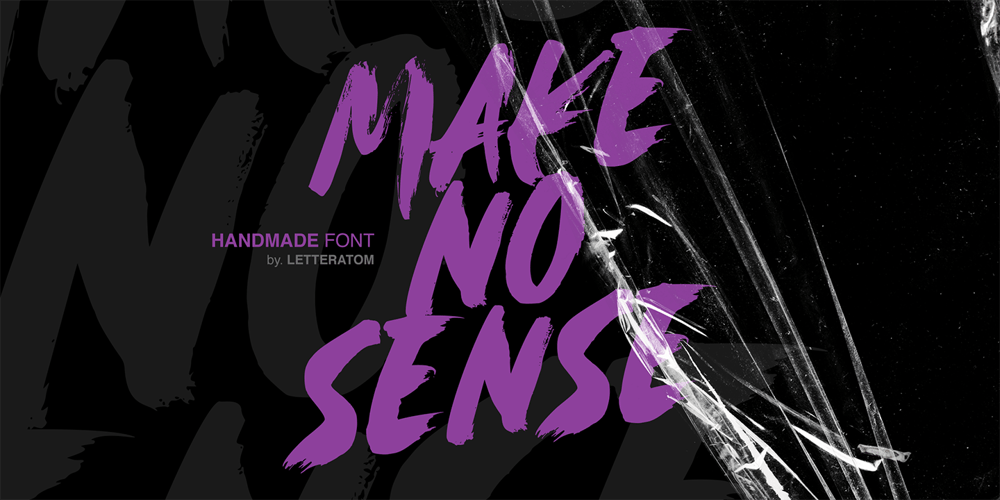
Make No Sense Font Family was designed by Eko Kurniawan and published by Atom. Make No Sense contains 1 styles and family package options. Make No Sense is a natural, bold and powerful handwritten font. This will turn any design idea into a standout! Make No Sense make unreasonable designs outstanding!